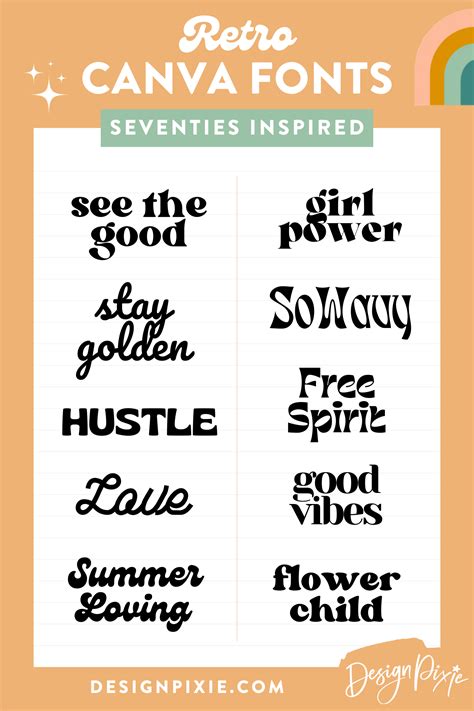
Cool Fonts On Canva. Plus with a creative twist or dash of detail they have a cool, contemporary. Web check out this article that shows how you can upload custom fonts with canva pro, and dive into our tutorial below to learn how to choose the right font for your brand.
Pick the Perfect Fonts for Your Canva Graphics
Plus with a creative twist or dash of detail they have a cool, contemporary. What i personally love about it is how each trailing letter has a dot linked to it. Web check out this article that shows how you can upload custom fonts with canva pro, and dive into our tutorial below to learn how to choose the right font for your brand. Vanity is a chic font specifically made for fashion magazines and blogs. Best free sans serif fonts on. Web this is another font designed by hendrick rolandez. Web the “times” font is an example of serif, named after the times newspaper in the uk. Web step inside to find 30 free modern fonts you can use in your design today. You can see san serif now in many. And forms, modern fonts are clean, clear, and easy to read;
You can see san serif now in many. Vanity is a chic font specifically made for fashion magazines and blogs. Best free sans serif fonts on. What i personally love about it is how each trailing letter has a dot linked to it. And forms, modern fonts are clean, clear, and easy to read; Web check out this article that shows how you can upload custom fonts with canva pro, and dive into our tutorial below to learn how to choose the right font for your brand. The first sans serif font was created in the early 19th century, as a modern approach to design. Plus with a creative twist or dash of detail they have a cool, contemporary. You can see san serif now in many. Web the “times” font is an example of serif, named after the times newspaper in the uk. Web social media graphics: